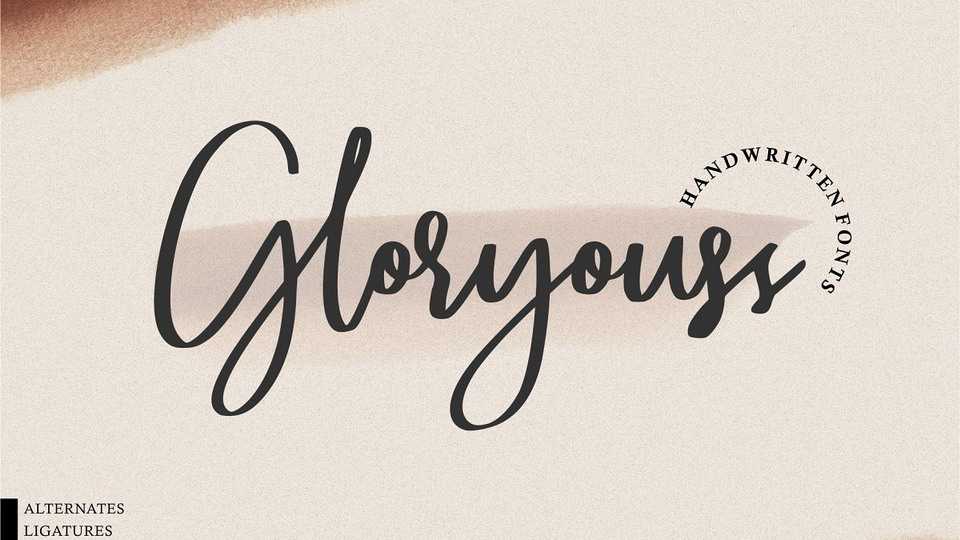
Downoad Gloryouss font, a natural and modern handwritten font. Gloryouss is perfect for logo, invitation, stationery, wedding designs, social media posts, advertisements, product packaging, product designs, label, photography, watermark, special events or anything.
Designer: Good Java Studio